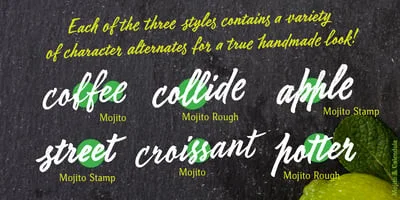
Mojito Font
Mojito Font is vibrantly designed for tropical resort branding, cocktail bar signage, summer festival materials, beach club communications, vacation rental advertising, Caribbean restaurant menus, tropical beverage packaging, and sunny lifestyle campaigns. This refreshing typeface excels in environments requiring tropical energy and summery appeal, making it perfect for hospitality brands, beverage companies, tropical tourism businesses, and any organization needing to communicate sunshine vibes and tropical refreshment through distinctive typography.
What makes Mojito Font so exciting is its perfect capture of tropical cocktail culture and vacation atmosphere that instantly transports viewers to sun-soaked beaches and refreshing summer experiences. The font features energetically crafted letterforms with tropical flair and refreshing curves that evoke the zesty spirit of lime garnishes and the effervescent joy of summer celebrations. Its tropical construction and refreshing character make it incredibly effective for brands wanting to communicate fun, relaxation, and tropical escape while appealing to audiences seeking vacation vibes and summery refreshment.
Mojito Font typically includes multiple weights and styles such as Light, Regular, Bold, and potentially frozen variants with enhanced tropical elements. The font family often features additional character sets including tropical symbols, cocktail icons, and summer glyphs that enhance its vacation appeal. Each weight maintains the font's distinctive refreshing character while offering different levels of visual zest, providing designers with comprehensive tools for creating tropical brand identities and summery communication materials.
Hospitality designers will find that Mojito Font delivers exceptional performance in both resort applications and beverage marketing materials designed for vacation audiences. The font's carefully crafted character set includes tropical-friendly letterforms, summer symbols, and vacation elements essential for hospitality branding, beverage packaging, and tropical tourism materials. Its refreshing design makes it particularly effective for beach resorts, cocktail lounges, summer events, and vacation-oriented marketing campaigns requiring authentic tropical presence.
The thoughtful attention to tropical proportions and refreshing spacing ensures that Mojito Font maintains excellent readability while delivering maximum summer impact. Its vacation-inspired design language makes it particularly effective for tropical hospitality, beverage branding, summer entertainment, and lifestyle applications. The font's energetic appearance creates strong tropical connections while remaining highly functional for projects requiring clear communication to vacation seekers and summer enthusiasts.
For designers seeking a typeface that embodies tropical refreshment with summery energy, Mojito Font represents an exceptional choice that will refresh any project with its distinctive zest and tropical character.